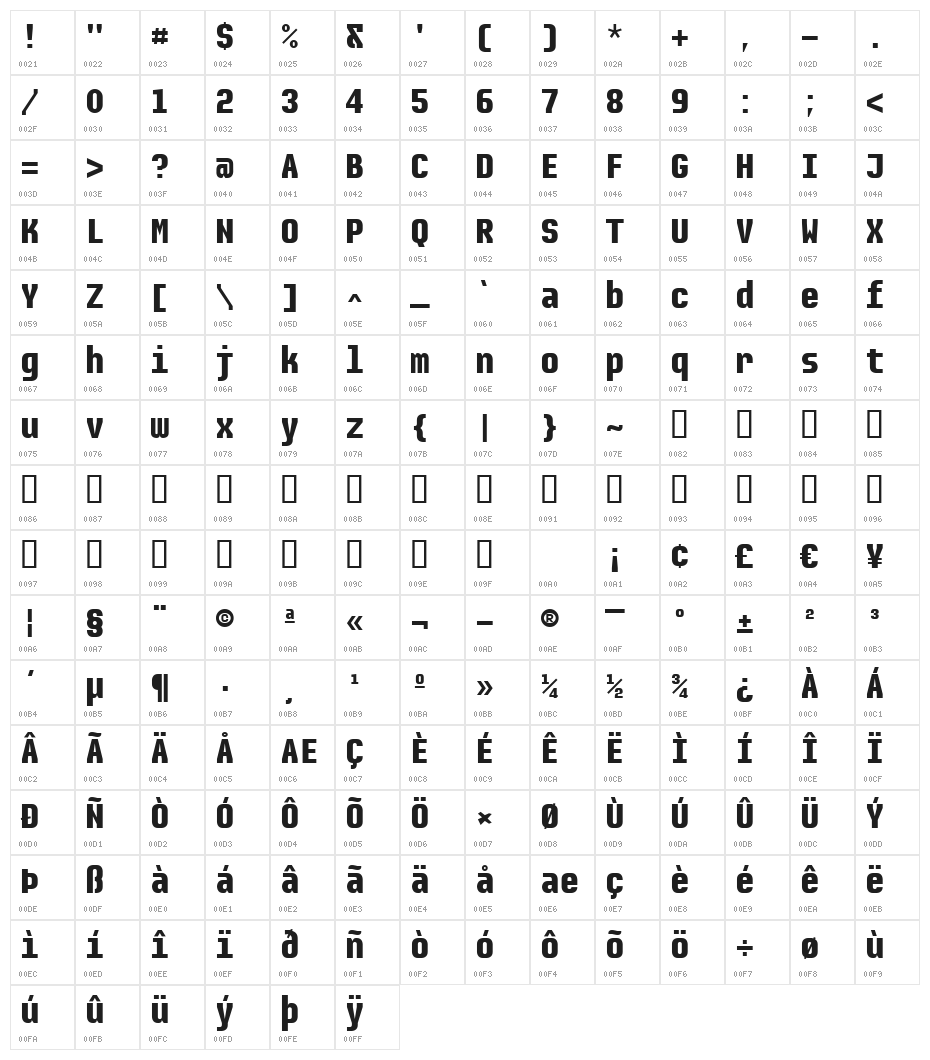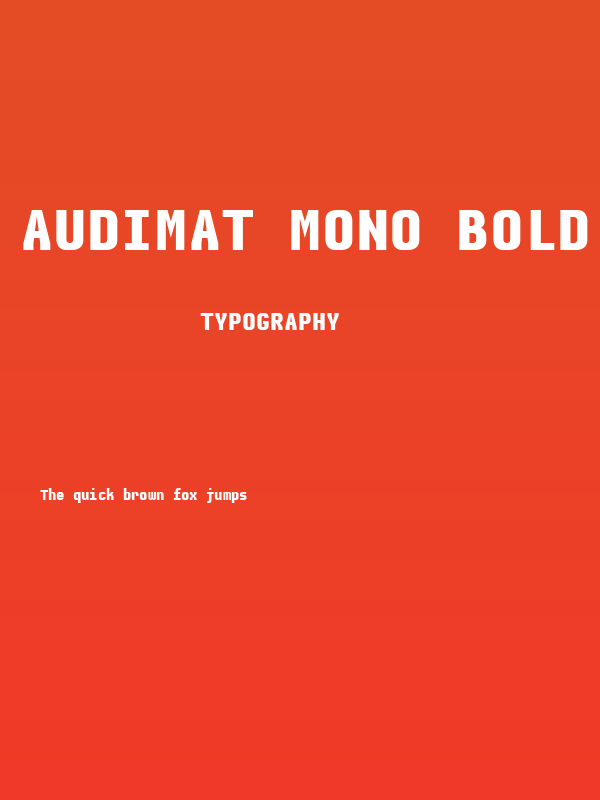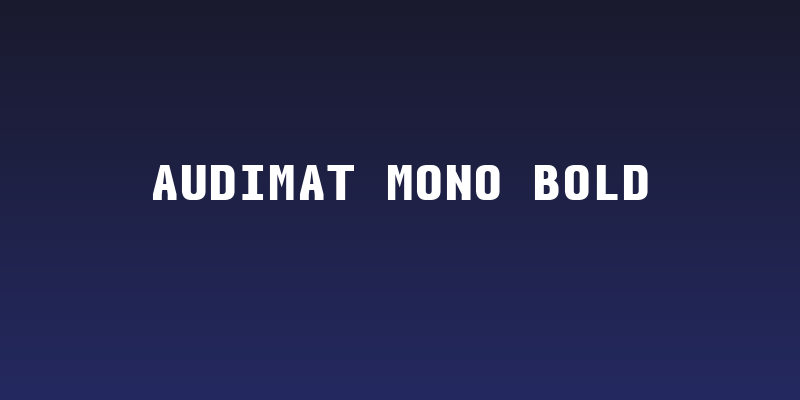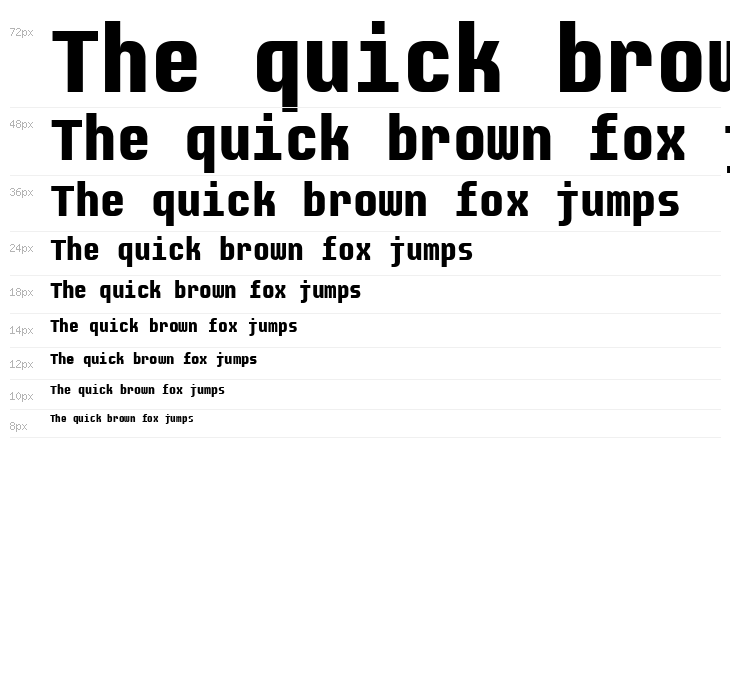
Audimat Mono Bold Font
Audimat Mono Bold Description
This font is a bold, monospaced typeface characterized by its strong, geometric shapes and consistent width across all characters. The uppercase and lowercase letters maintain a uniform height, contributing to a clean and structured appearance. The numerals and special characters are designed with the same boldness, ensuring readability and balance. The font's design is modern and functional, making it suitable for various digital and print applications. Its bold weight and monospaced nature make it ideal for coding, technical documents, and any project requiring a clear and uniform text presentation.
| Use Case | Coding, Technical documents, Digital interfaces |
| Proposed Projects | Ideal for coding, technical documents, digital interfaces, and print media requiring clarity and uniformity. |